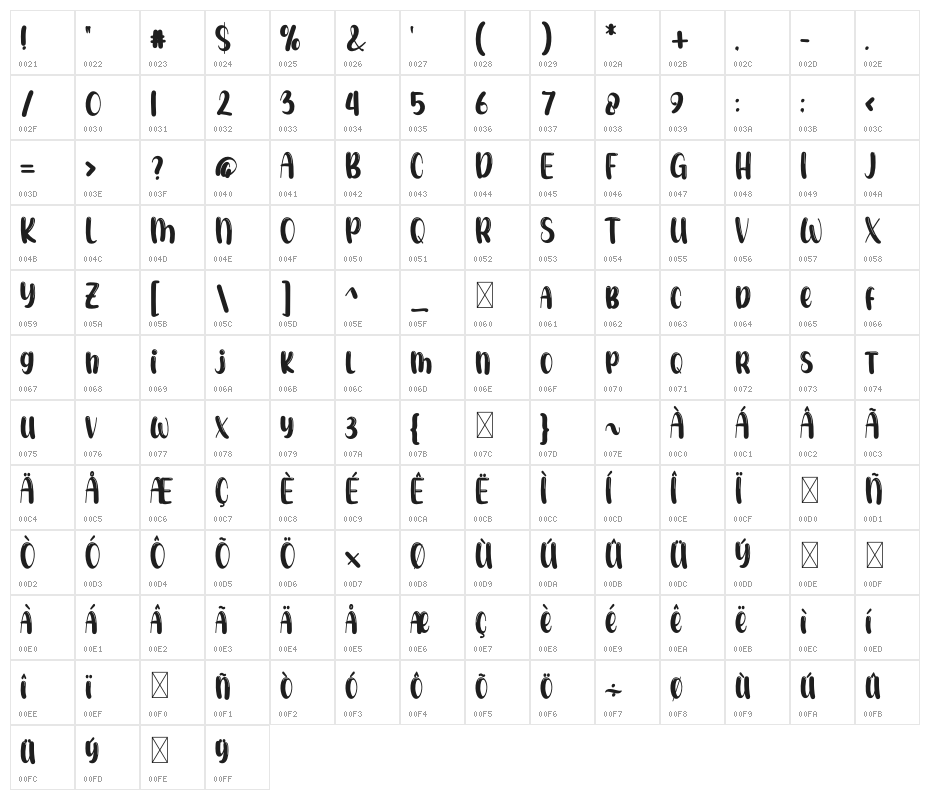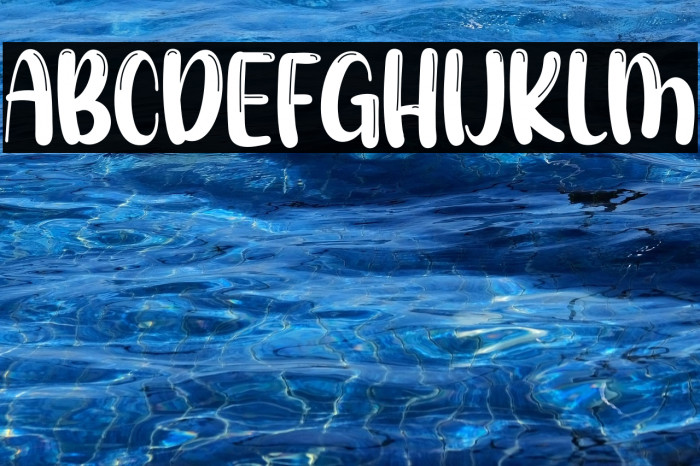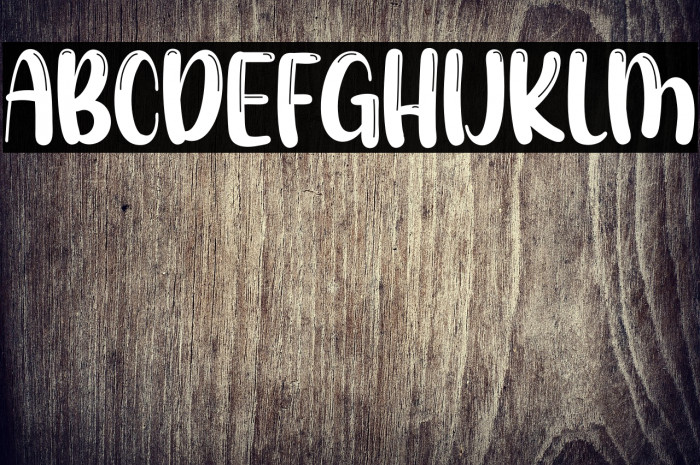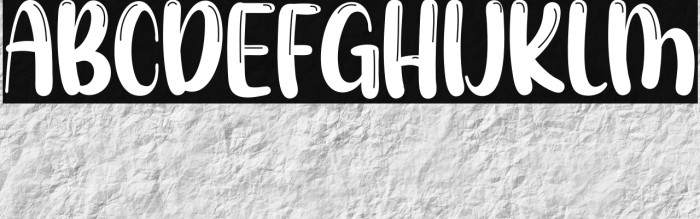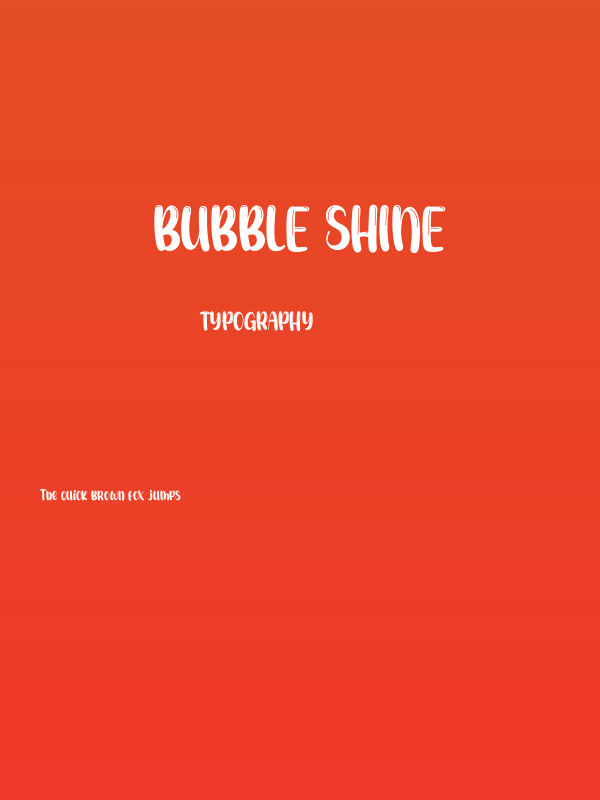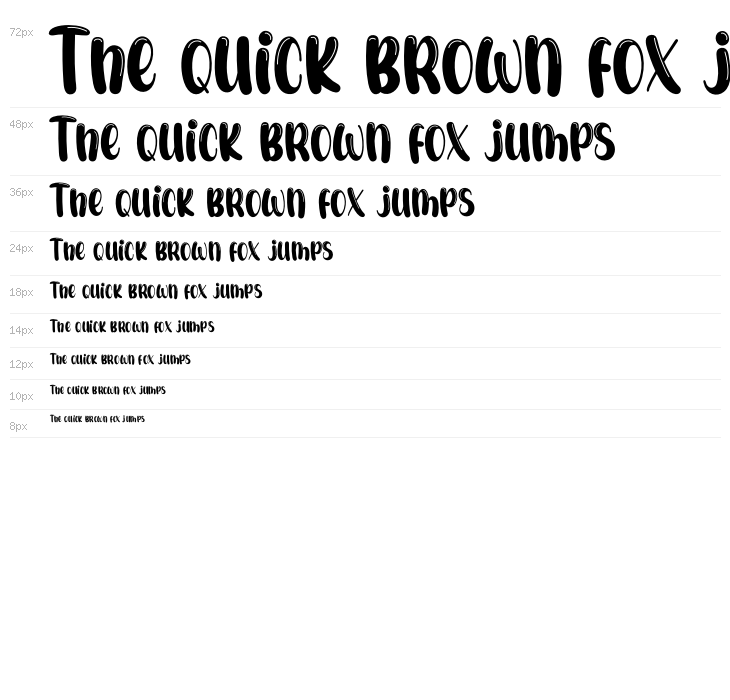
Bubble Shine Font
Bubble Shine Description
This playful and bold font features a bubbly, hand-drawn style with thick, rounded strokes that give it a lively and energetic appearance. The characters are slightly slanted, adding a dynamic feel, while the consistent stroke width maintains a sense of balance and uniformity. The uppercase and lowercase letters are designed with a whimsical flair, making them stand out with their unique and artistic curves. The numbers and special characters follow the same playful design, ensuring a cohesive look across all text elements. This font is perfect for projects that require a fun and informal touch, such as children's books, party invitations, or playful branding materials.